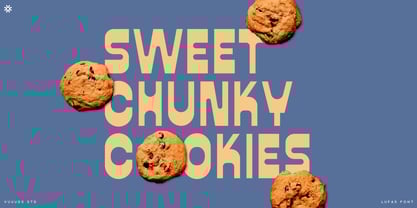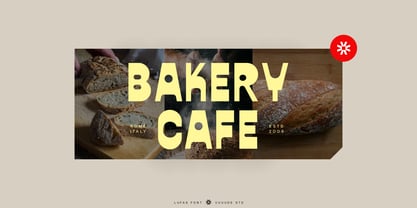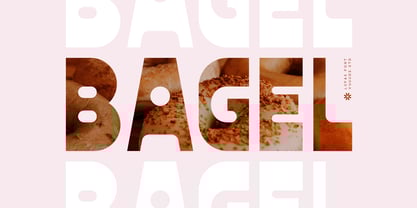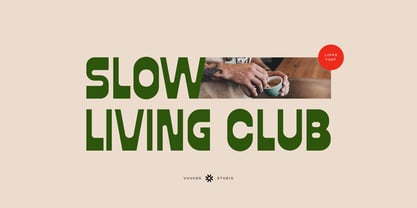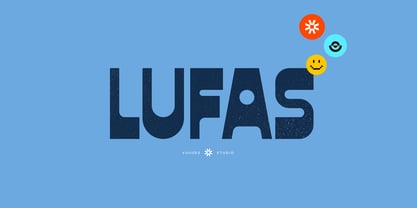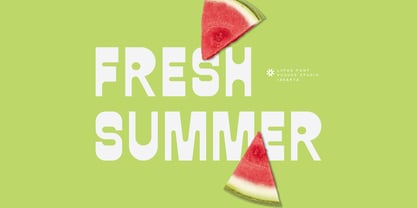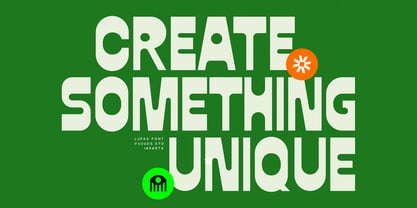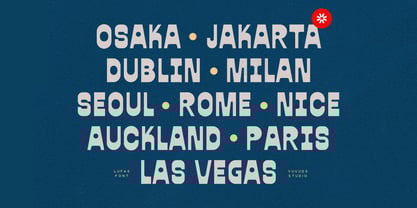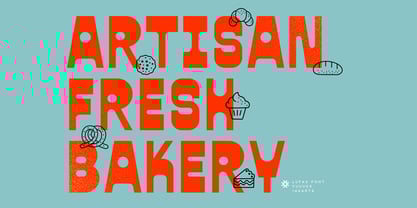
Lufas
by vuuuds
The Lufas Font Family was designed by Agung Syaifudin and published by vuuuds. Lufas contains 1 styles. More about this family
Introducing Lufas Font!
Lufas is experimental western retro font, every single letters have been uniquely crafted.
Designers: Agung Syaifudin
Foundry: vuuuds